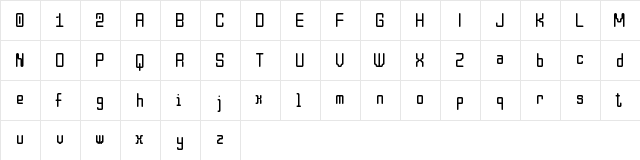
migrateur Regular
| Designer | marconfactory |
Design Context for migrateur Typeface
migrateur is a composed and adaptable typeface that performs quietly and consistently across a wide range of design contexts.